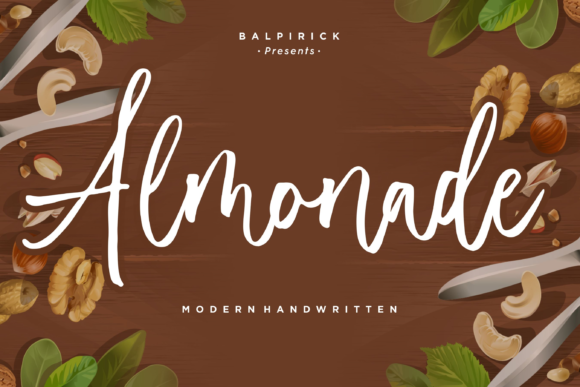
Introducing Almonade Font: The Cute and Casual Handwritten Font for Creative Projects
Are you looking for a font that can add a personal touch to your creative projects? Do you want to create stunning Instagram posts, DIY crafts, or beautiful calligraphy scripts? Look no further than Almonade Font, a cute and casual handwritten font that is sure to bring a friendly feel to any design.
What is Almonade Font?
Almonade Font is a unique and charming handwritten font that is perfect for creative projects. Its incredibly friendly feel makes it ideal for designs that require a personal touch. Whether you’re a designer, artist, or DIY enthusiast, Almonade Font is a great choice for adding a touch of warmth and personality to your work.
Uses of Almonade Font
Almonade Font is a versatile font that can be used for a variety of creative projects. Here are some ideas to get you started:
- Instagram Posts: Use Almonade Font to create stunning Instagram posts that stand out from the crowd. Its friendly feel and casual vibe make it perfect for social media designs.
- Calligraphy Scripts: Almonade Font is a great choice for calligraphy scripts, adding a touch of elegance and sophistication to any design.
- DIY Projects: Whether you’re creating handmade cards, gift tags, or other DIY crafts, Almonade Font is a great choice for adding a personal touch.
- Branding and Packaging: Use Almonade Font to create unique and eye-catching branding and packaging designs that reflect your brand’s personality.
Features of Almonade Font
Almonade Font has several features that make it a great choice for creative projects. Here are some of its key features:
- Cute and Casual: Almonade Font has a cute and casual feel that makes it perfect for designs that require a friendly touch.
- Handwritten: Almonade Font is a handwritten font, giving it a personal and unique feel.
- Easy to Read: Despite its casual feel, Almonade Font is easy to read, making it perfect for designs that require a clear and legible font.
- Versatile: Almonade Font can be used for a variety of creative projects, from Instagram posts to calligraphy scripts.
Benefits of Using Almonade Font
Using Almonade Font for your creative projects has several benefits. Here are some of the advantages of using this font:
- Adds a Personal Touch: Almonade Font adds a personal touch to any design, making it perfect for creative projects that require a unique feel.
- Enhances Creativity: Almonade Font’s friendly feel and casual vibe can enhance your creativity, inspiring you to create stunning designs.
- Easy to Use: Almonade Font is easy to use, even for those who are new to design. Its simplicity and legibility make it a great choice for designers of all levels.
- Time-Saving: Using Almonade Font can save you time, as it’s easy to read and understand, reducing the need for extensive design work.
Tips for Using Almonade Font
Here are some tips for using Almonade Font effectively in your creative projects:
- Pair with Other Fonts: Almonade Font pairs well with other fonts, so don’t be afraid to experiment with different font combinations.
- Use for Headings and Titles: Almonade Font is perfect for headings and titles, adding a touch of elegance and sophistication to any design.
- Experiment with Colors: Almonade Font looks great in a variety of colors, so experiment with different colors to find the perfect shade for your design.
- Keep it Simple: Almonade Font is a simple font, so keep your design simple and clean to make the most of its friendly feel.
Almonade Font is a cute and casual handwritten font that is perfect for creative projects. Its friendly feel and versatile nature make it a great choice for designers, artists, and DIY enthusiasts. With its ease of use, simplicity, and legibility, Almonade Font is sure to bring a personal touch to any design. So why not give Almonade Font a try and see how it can enhance your creative projects?